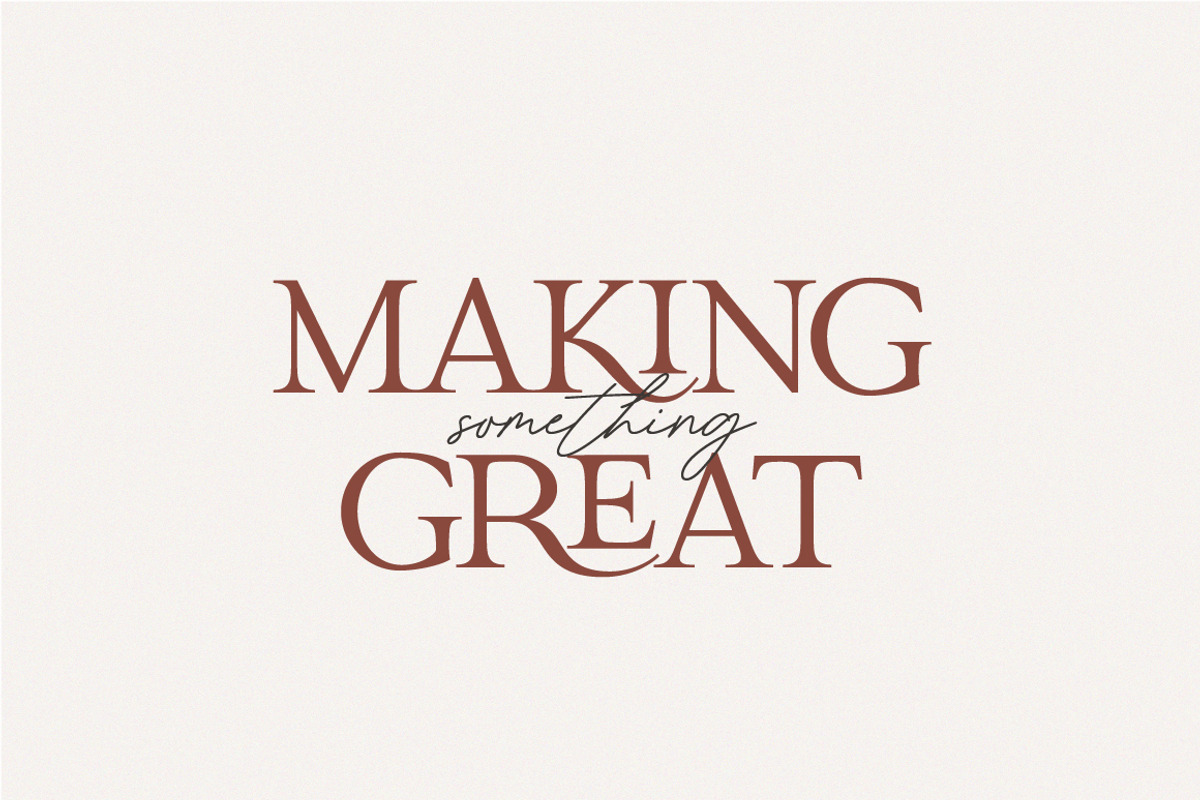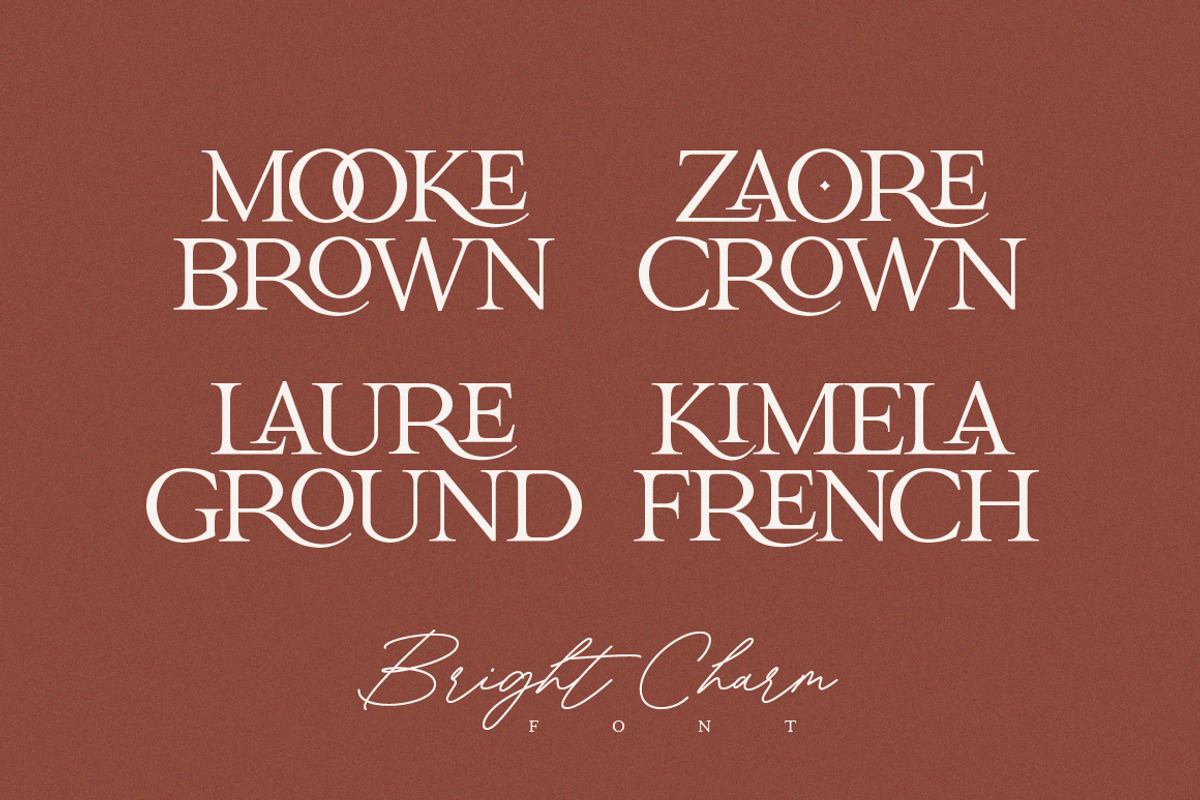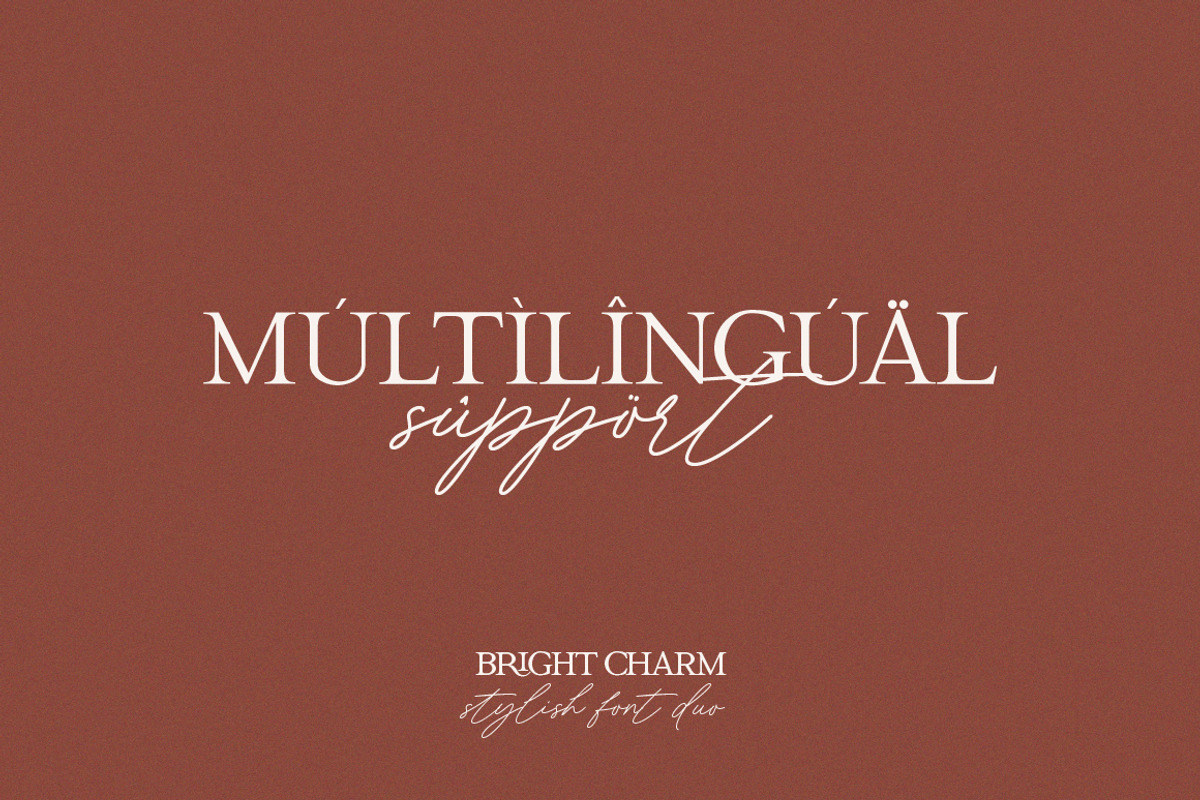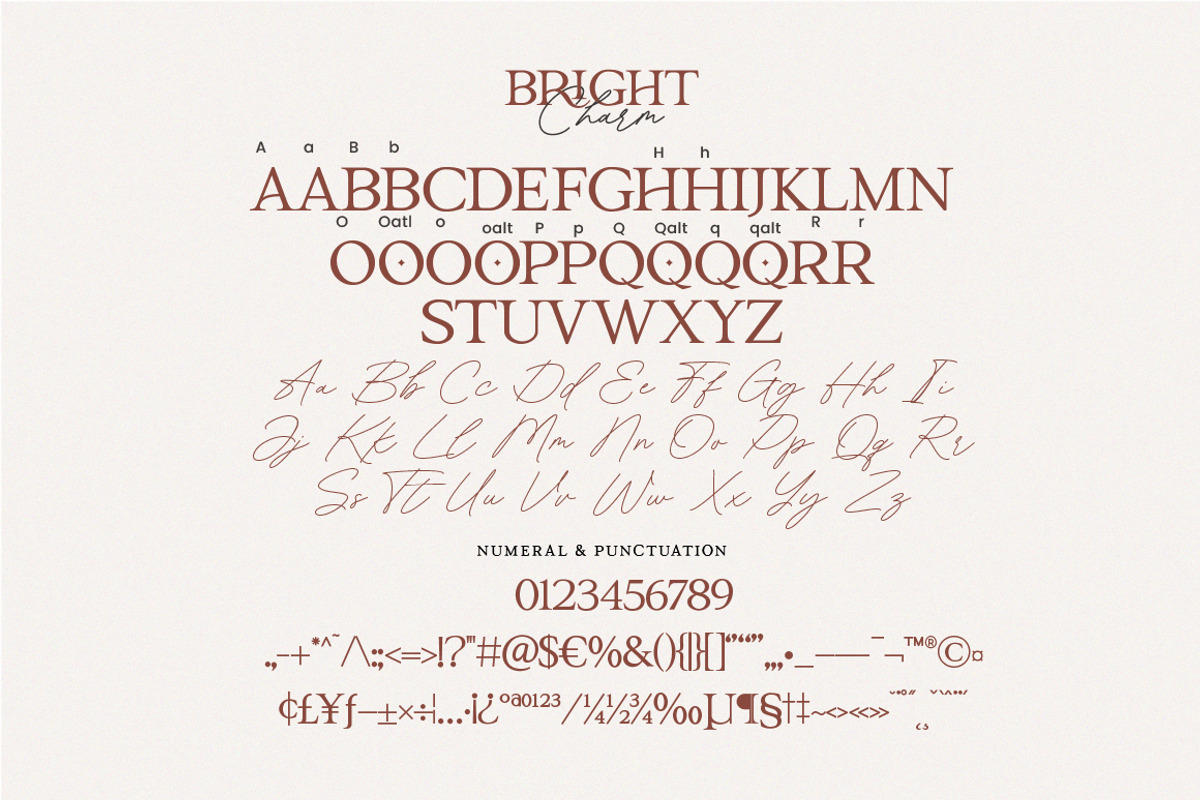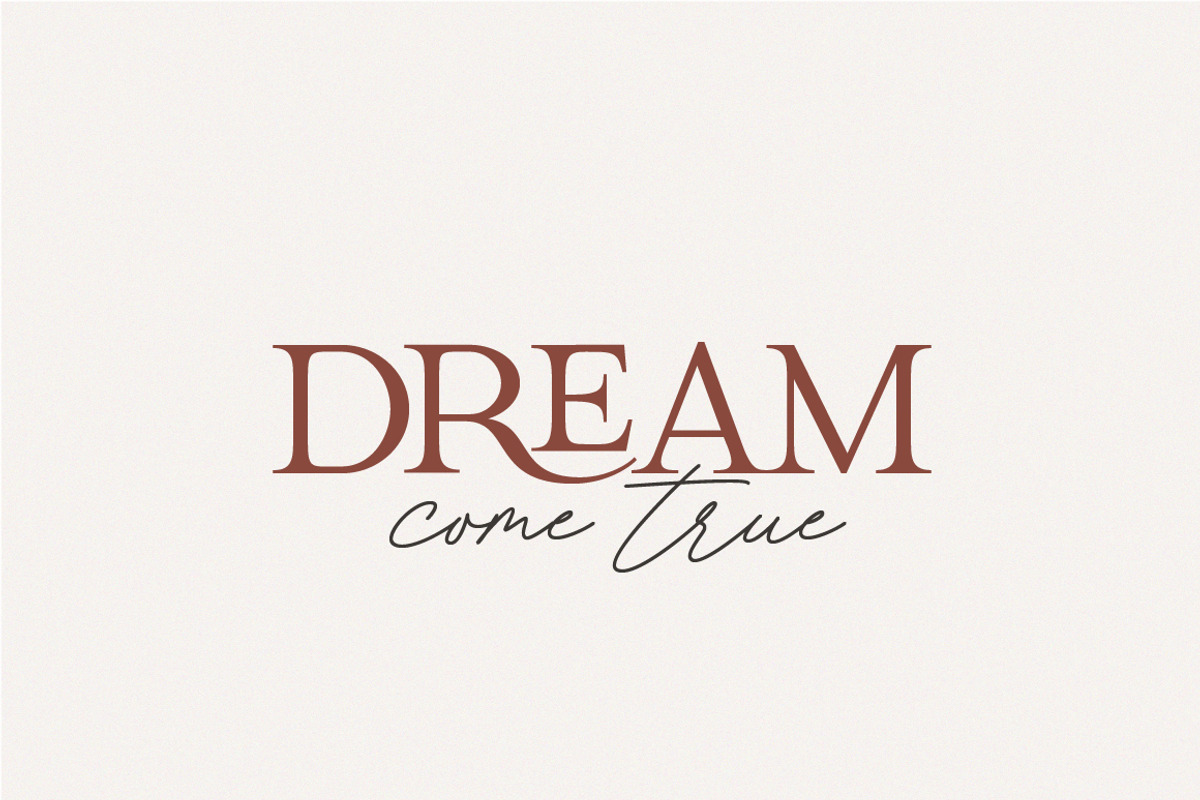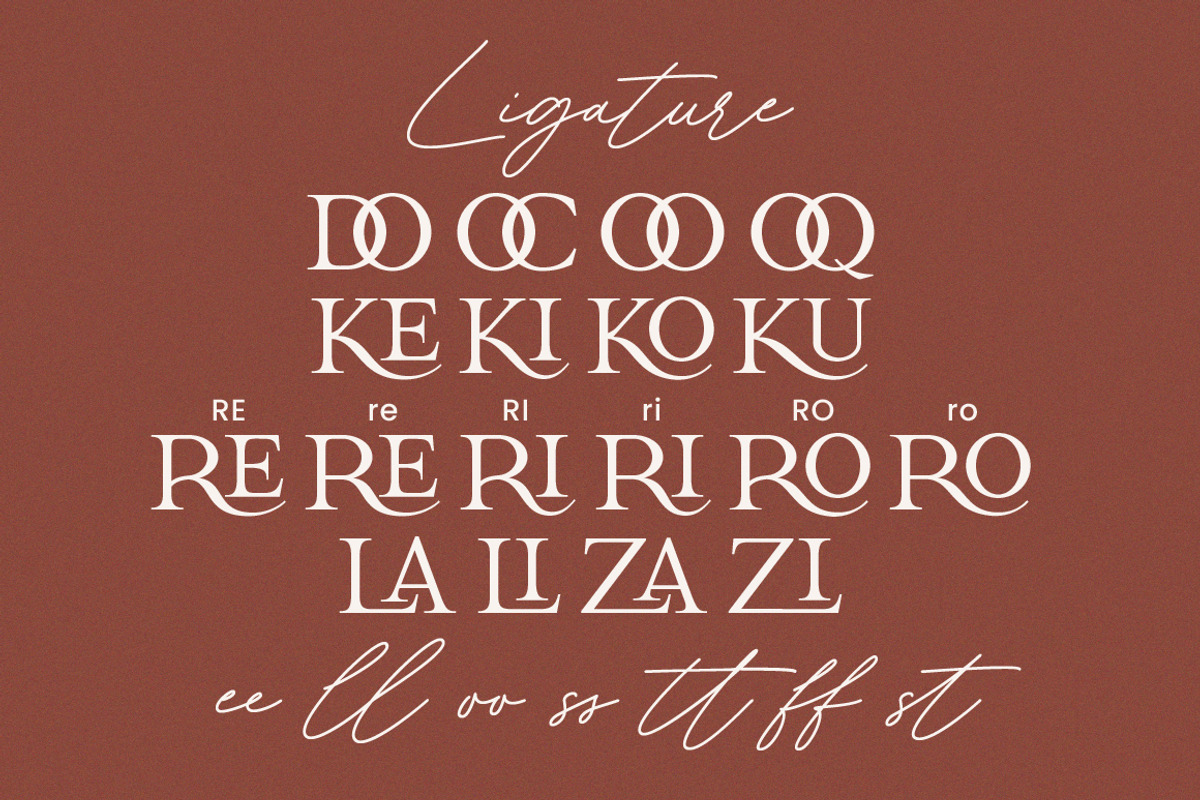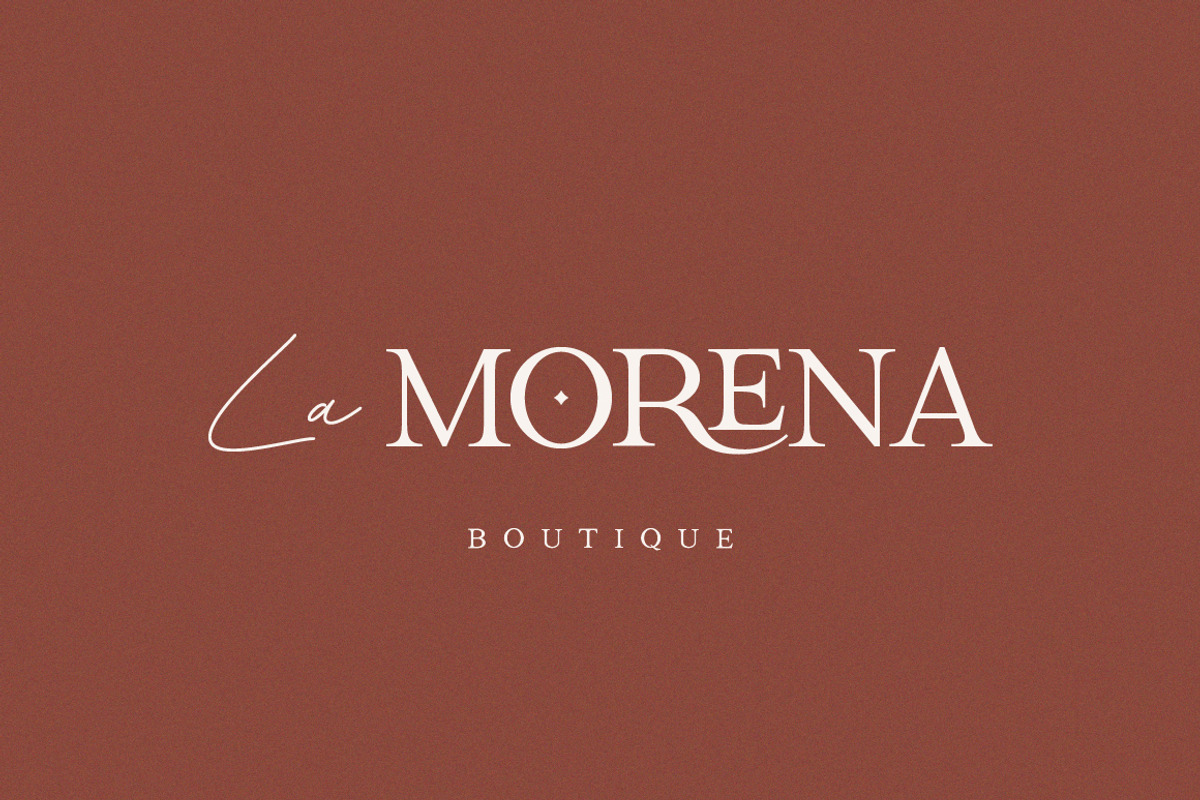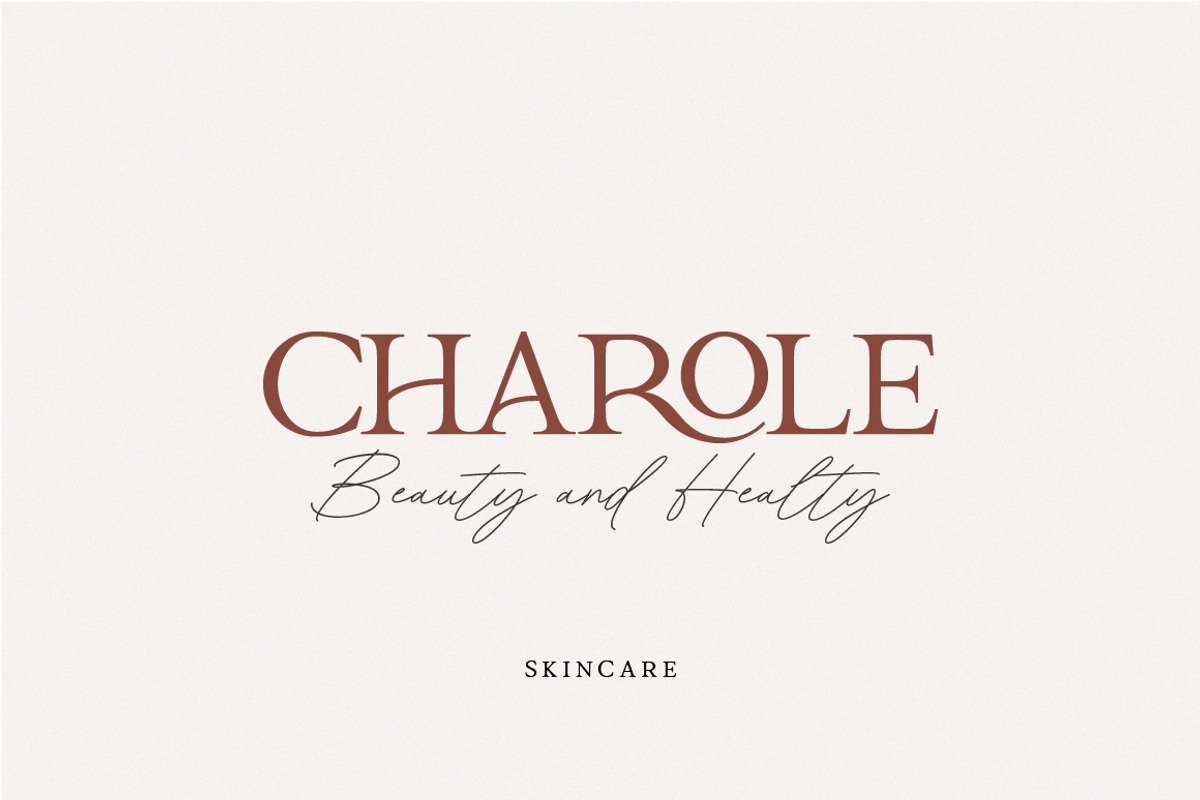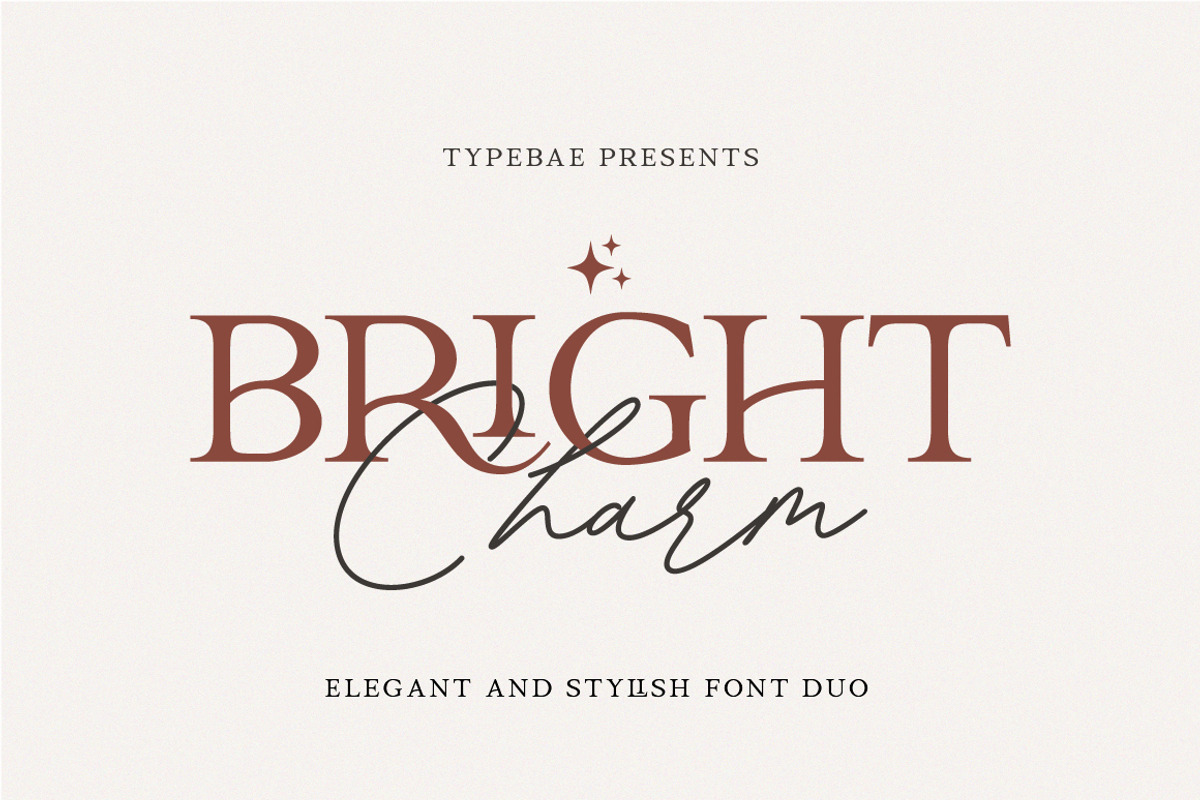
Bright Charm - Elegant Font Duo
Bright Charm is an elegant and stylish font duo featuring a refined serif and a graceful script. Perfect for branding, logos, invitations, and social media, it adds a touch of luxury to any design.
This font duo includes a variety of ligatures, ensuring smooth, natural letter connections for a sophisticated. Whether classic or modern, Bright Charm effortlessly enhances any creative project.
- Stylistic Alternates & Ligatures
- Multilanguage Support & PUA Encoded